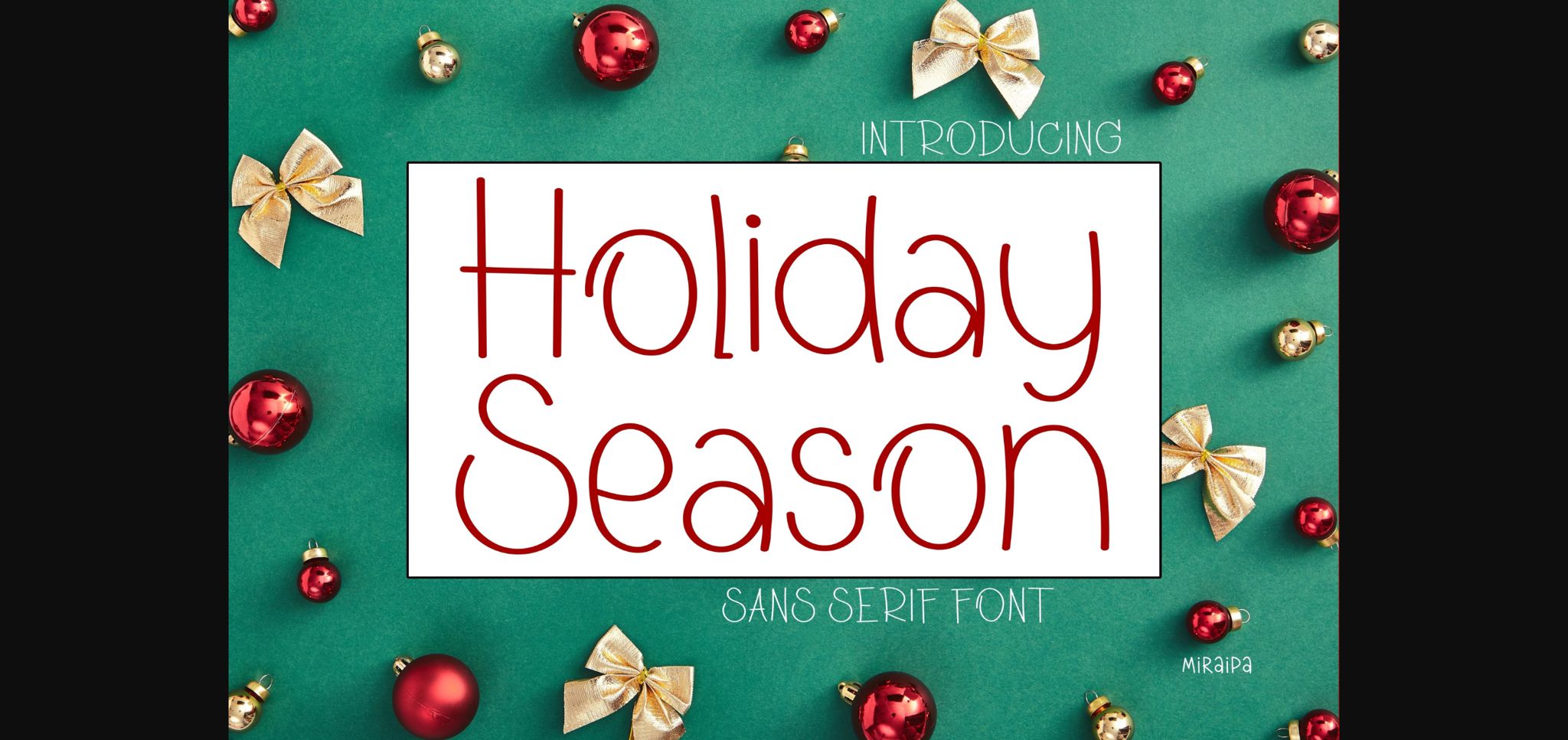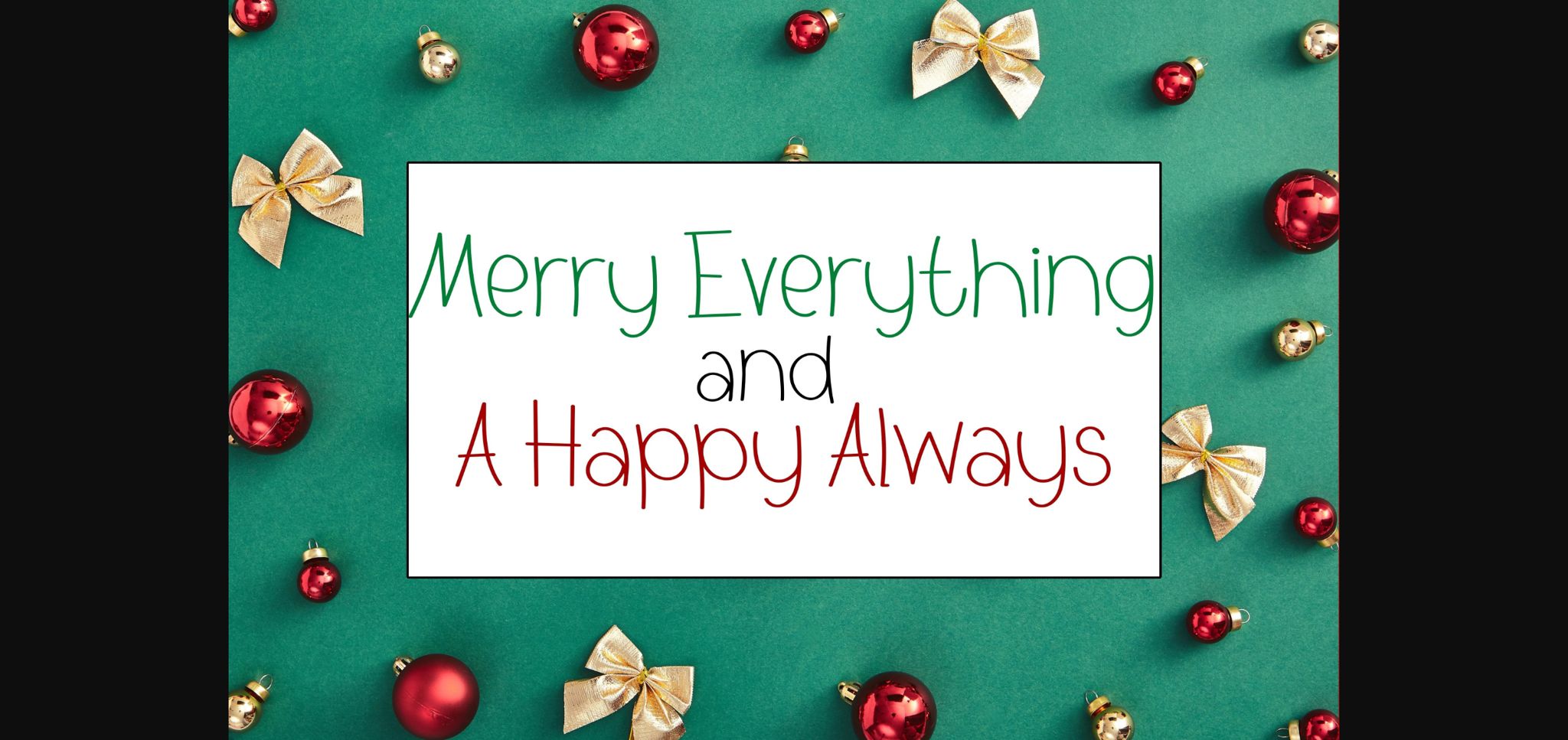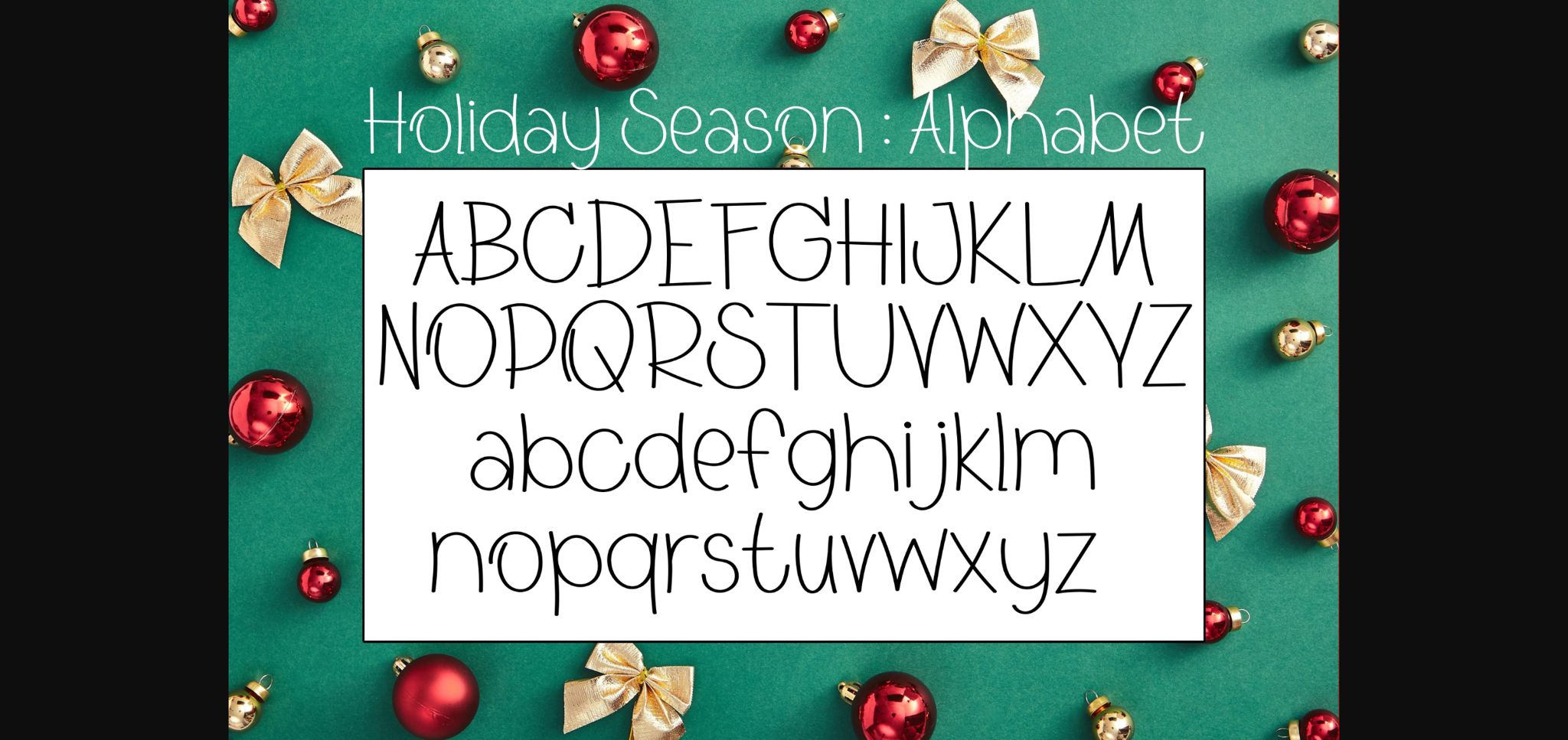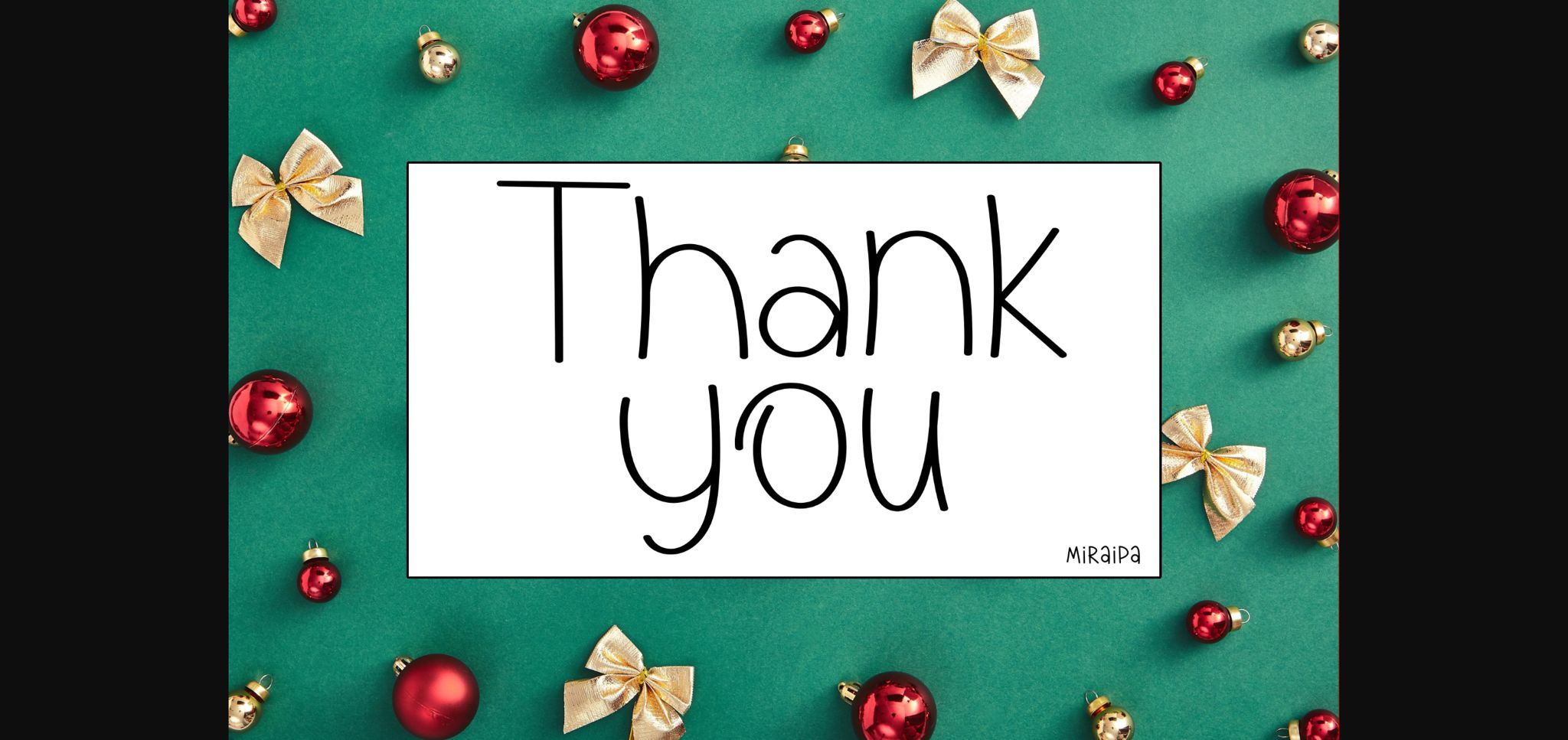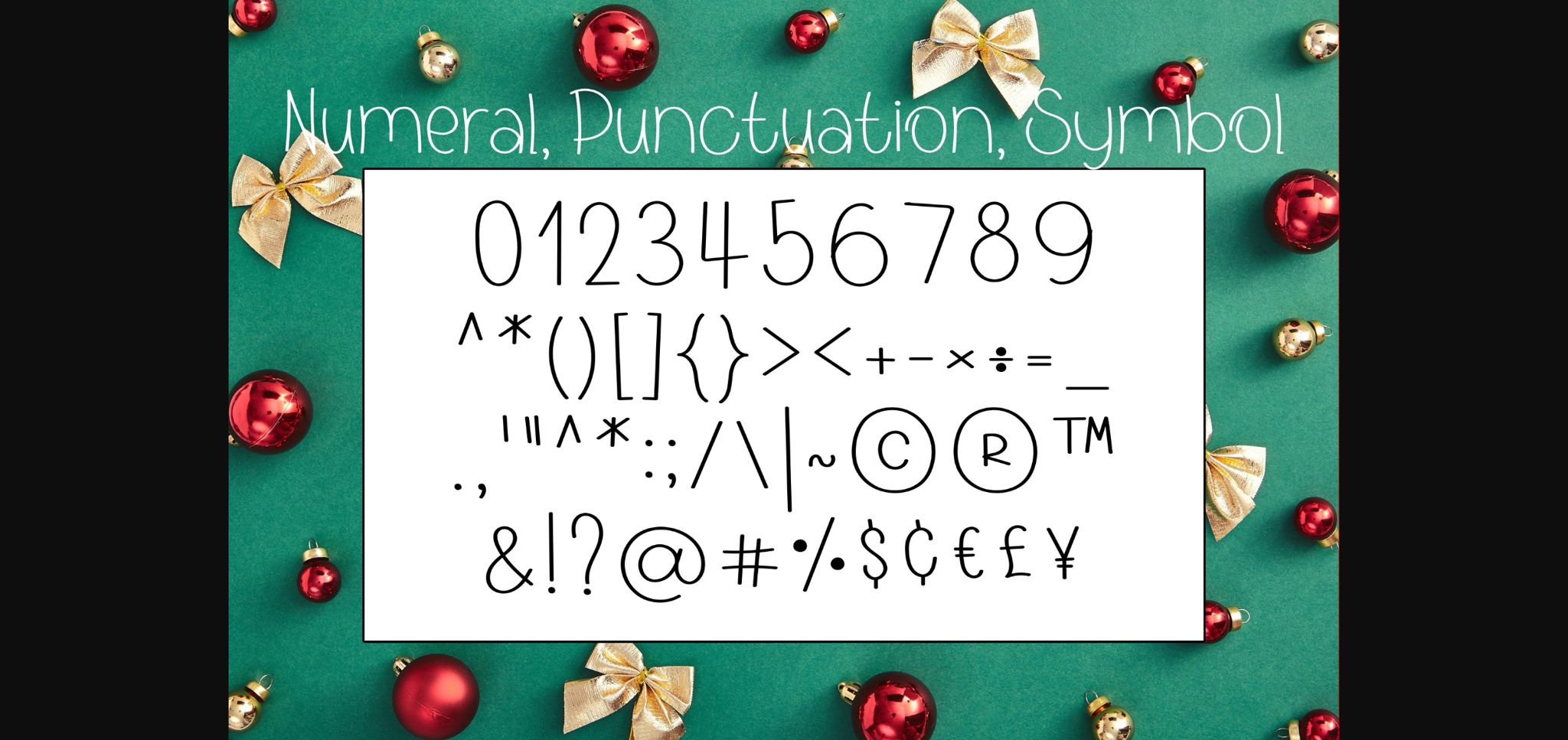
Holiday Season Font
About Holiday Season Font
Holiday Season is a fresh and natural handwritten font. It looks stunning on wedding invitations, thank you cards, quotes, greeting cards, logos, business cards, and every other design which needs a casual handwritten touch.